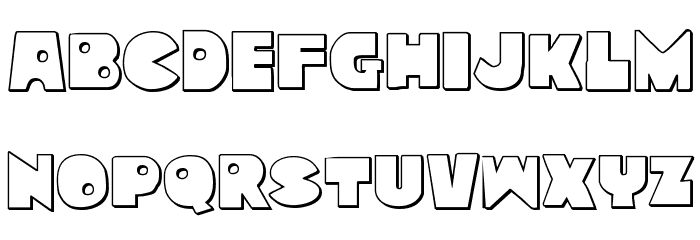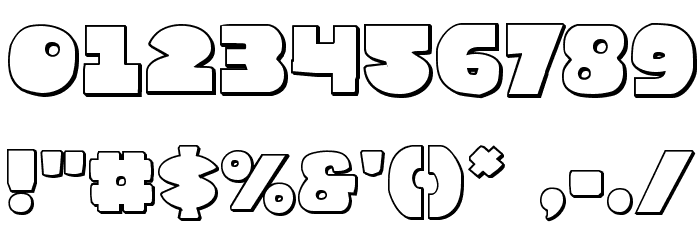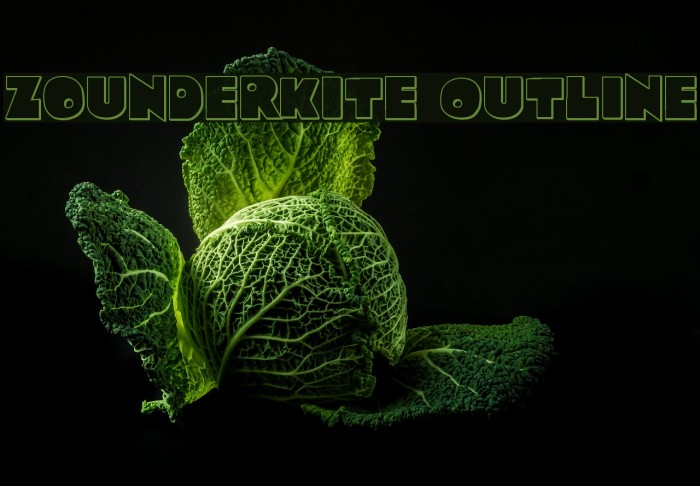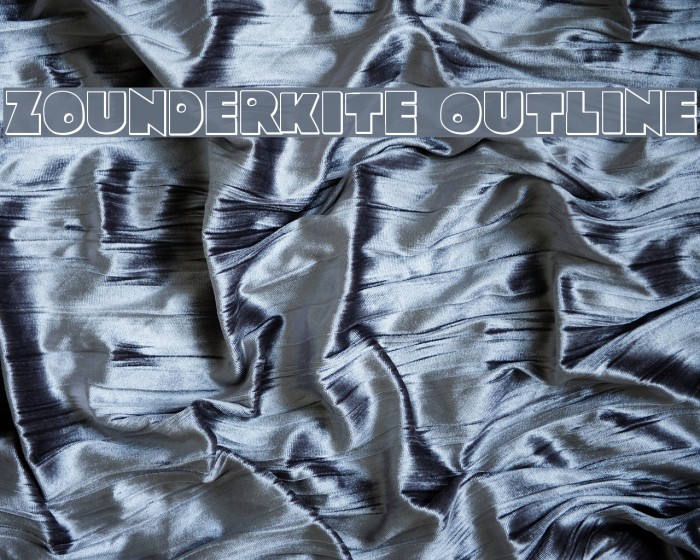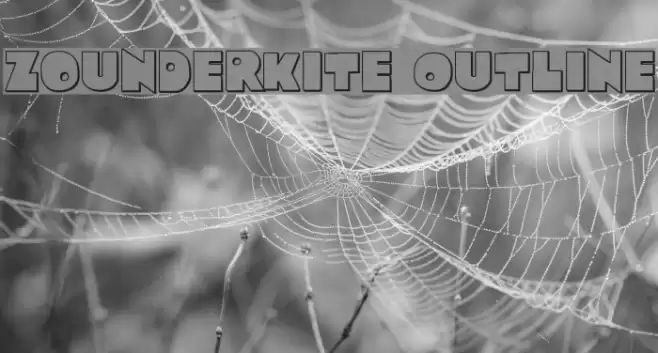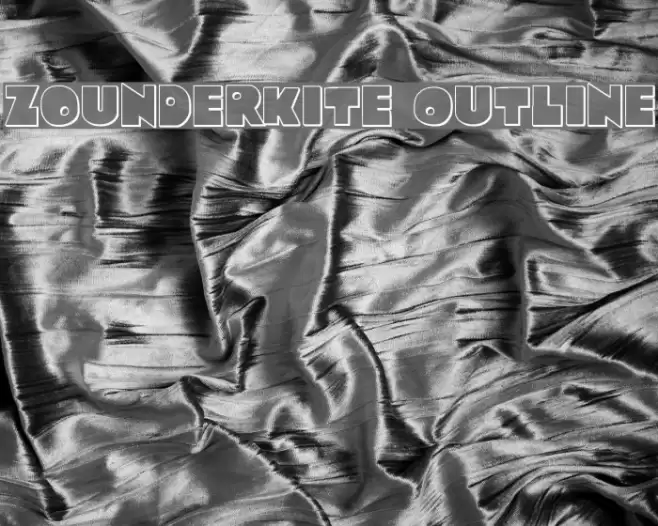
Zounderkite Outline Font
This font features a bold, playful outline style with a cartoonish and whimsical appearance. The characters are blocky and rounded, giving them a friendly and approachable look. The uppercase and lowercase letters maintain a consistent style, with thick outlines that create a sense of depth and dimension. The numbers and special characters follow the same design principles, ensuring a cohesive look across all elements. This font's unique style makes it stand out, making it ideal for projects that require a fun and engaging visual impact.
A bold, playful outline font with a cartoonish and whimsical style.
- Proposed Projects: Ideal for children's books, comic strips, playful branding, and eye-catching posters.
- Overall Style: Playful, Cartoonish, Whimsical